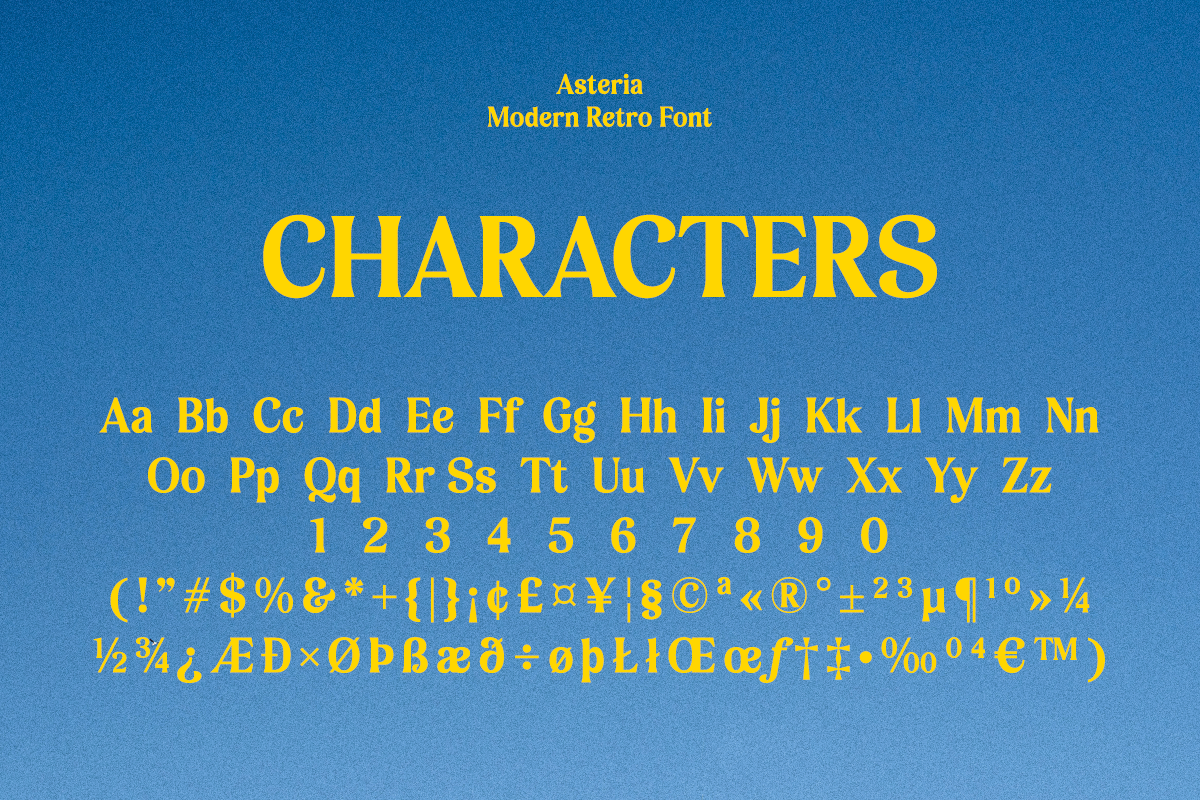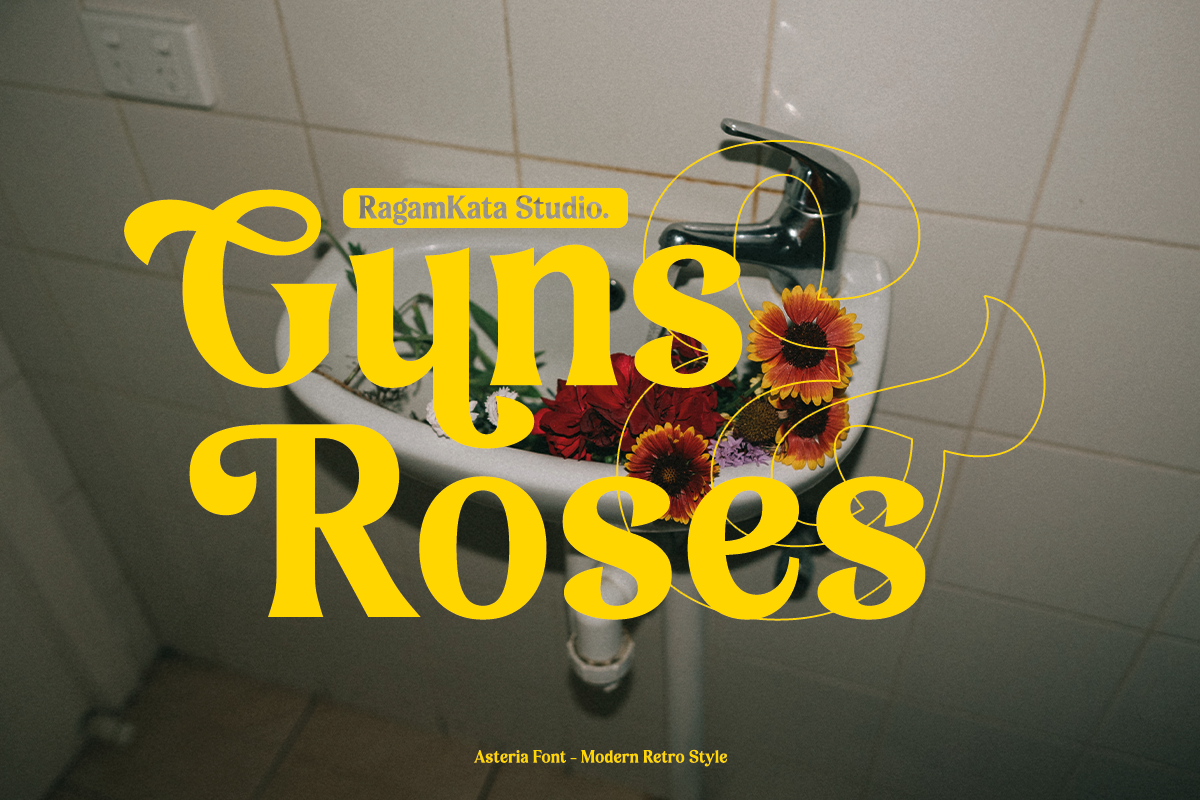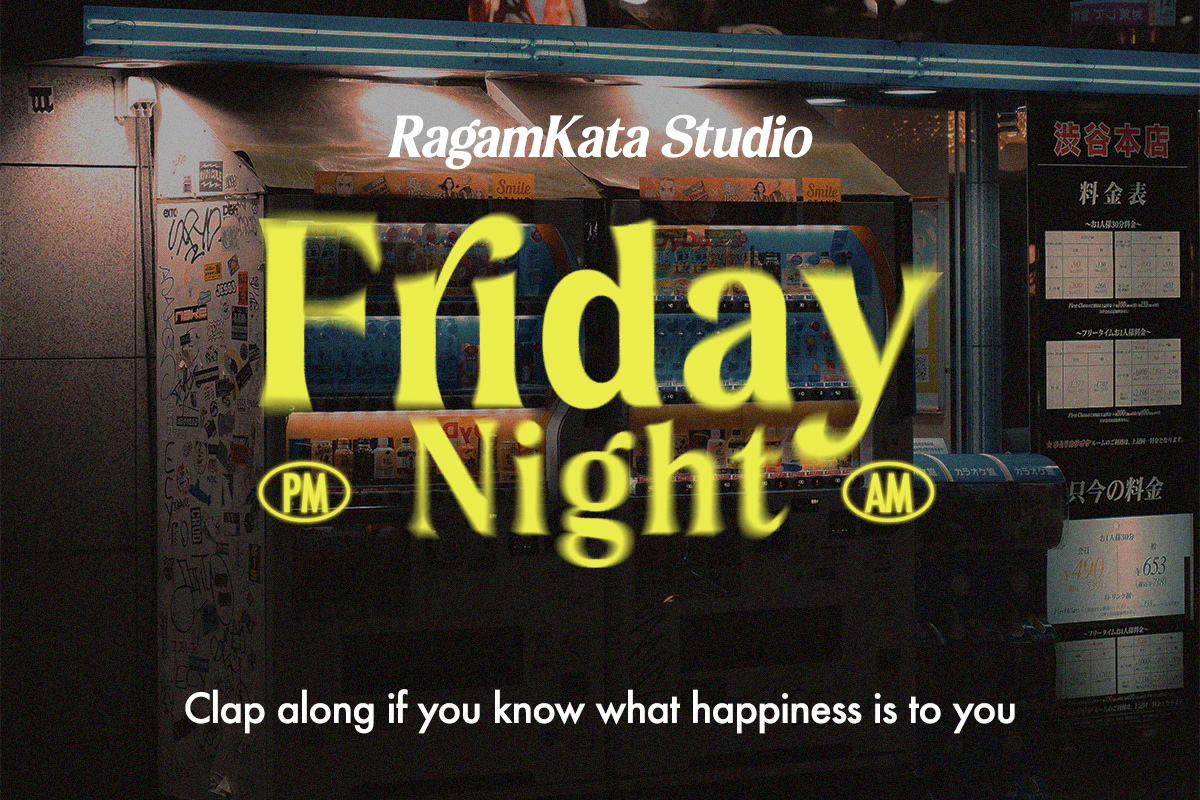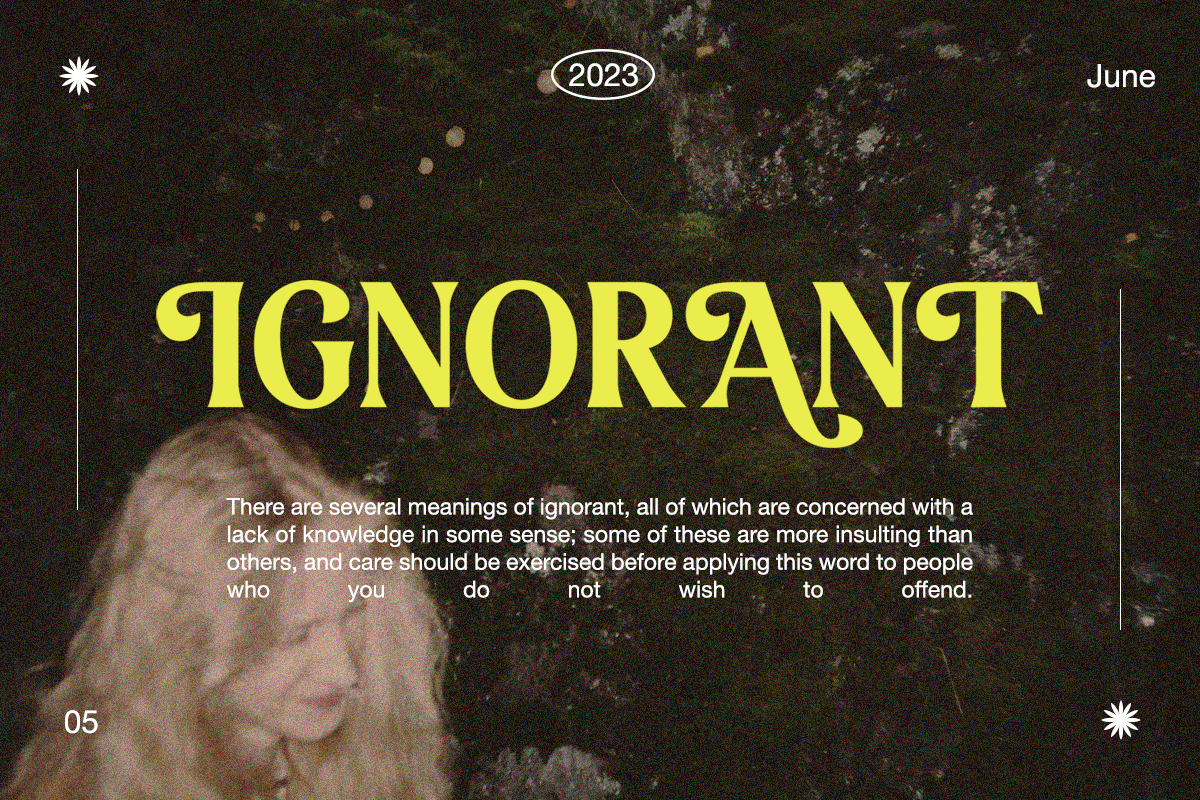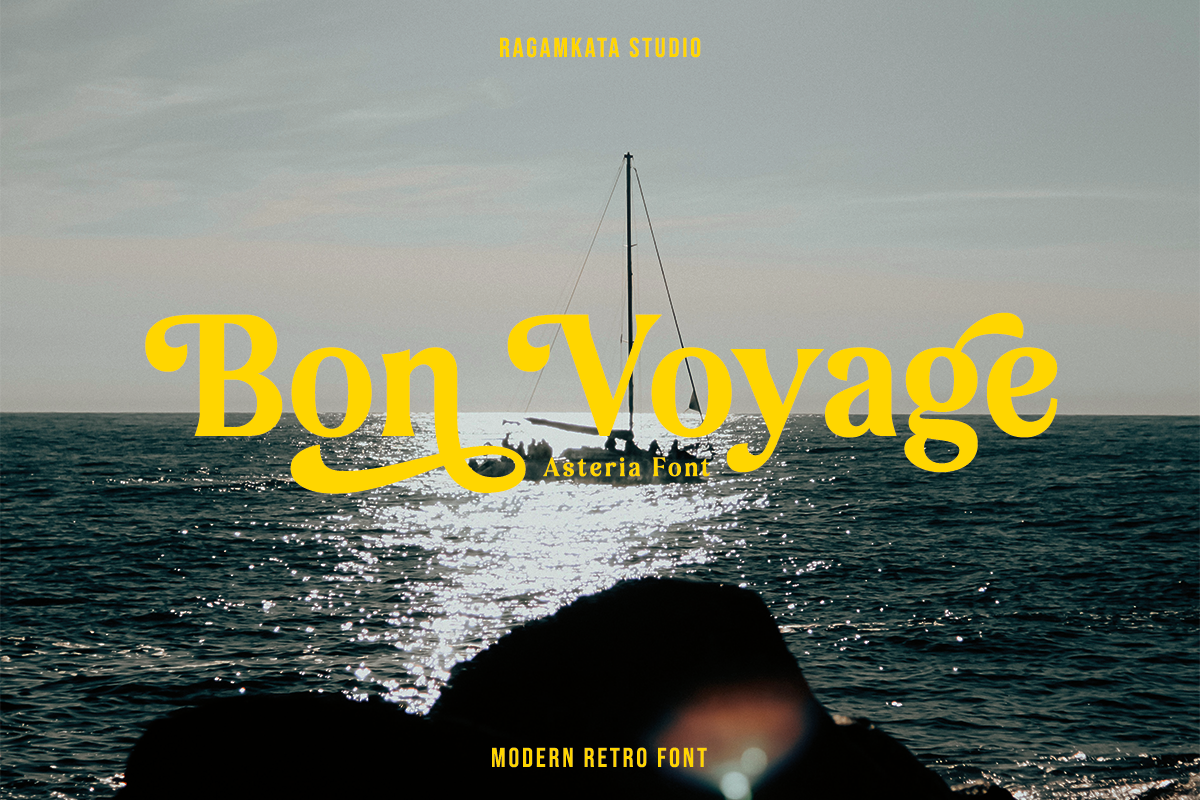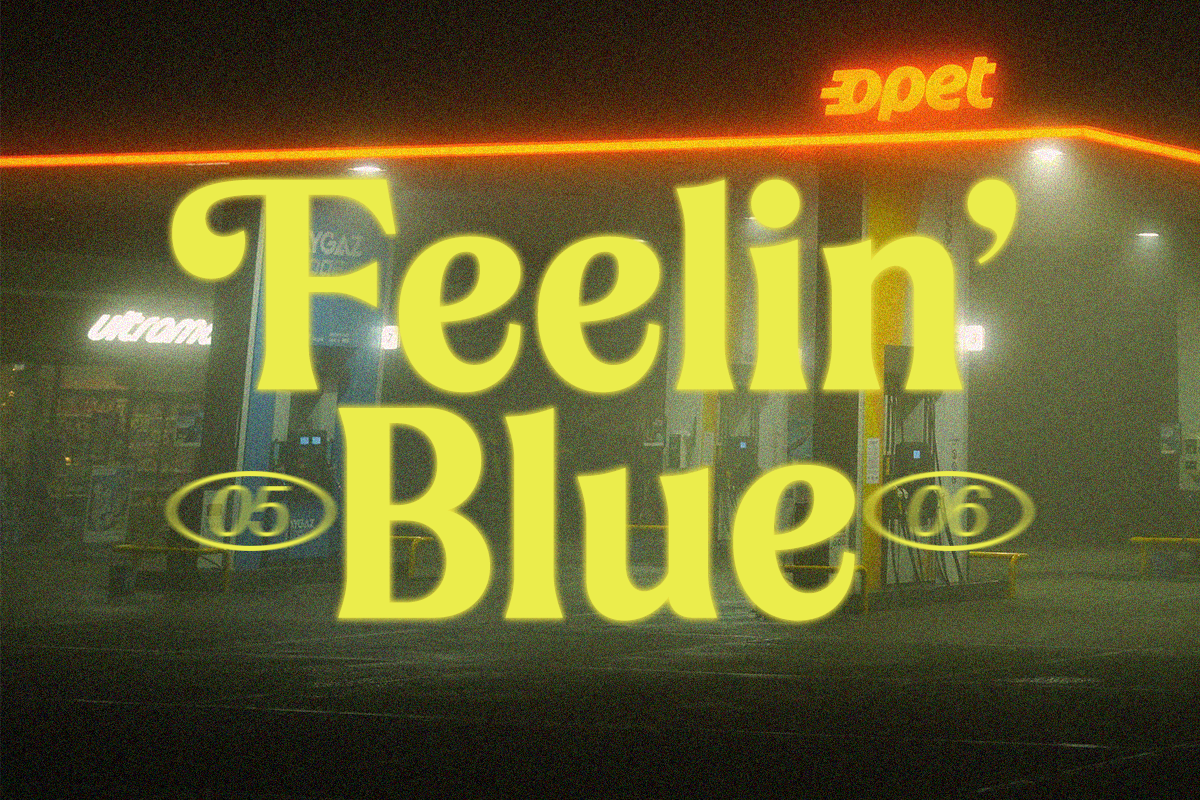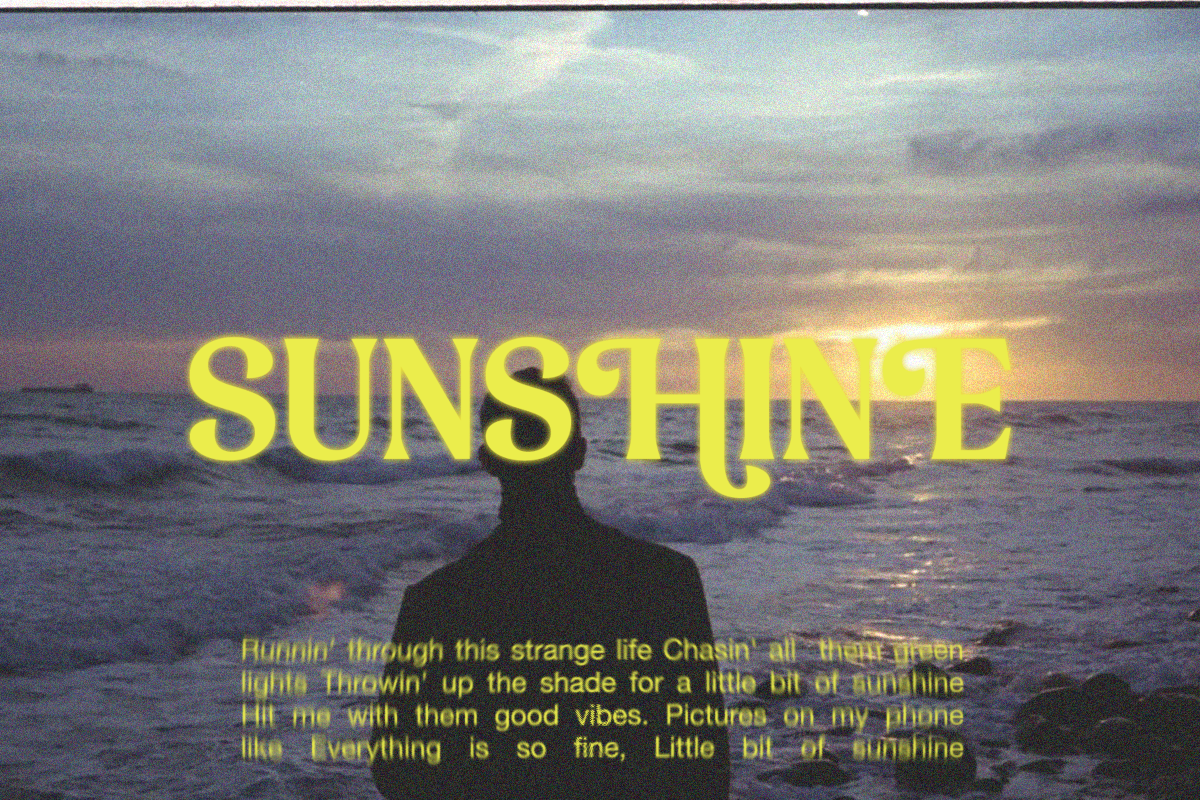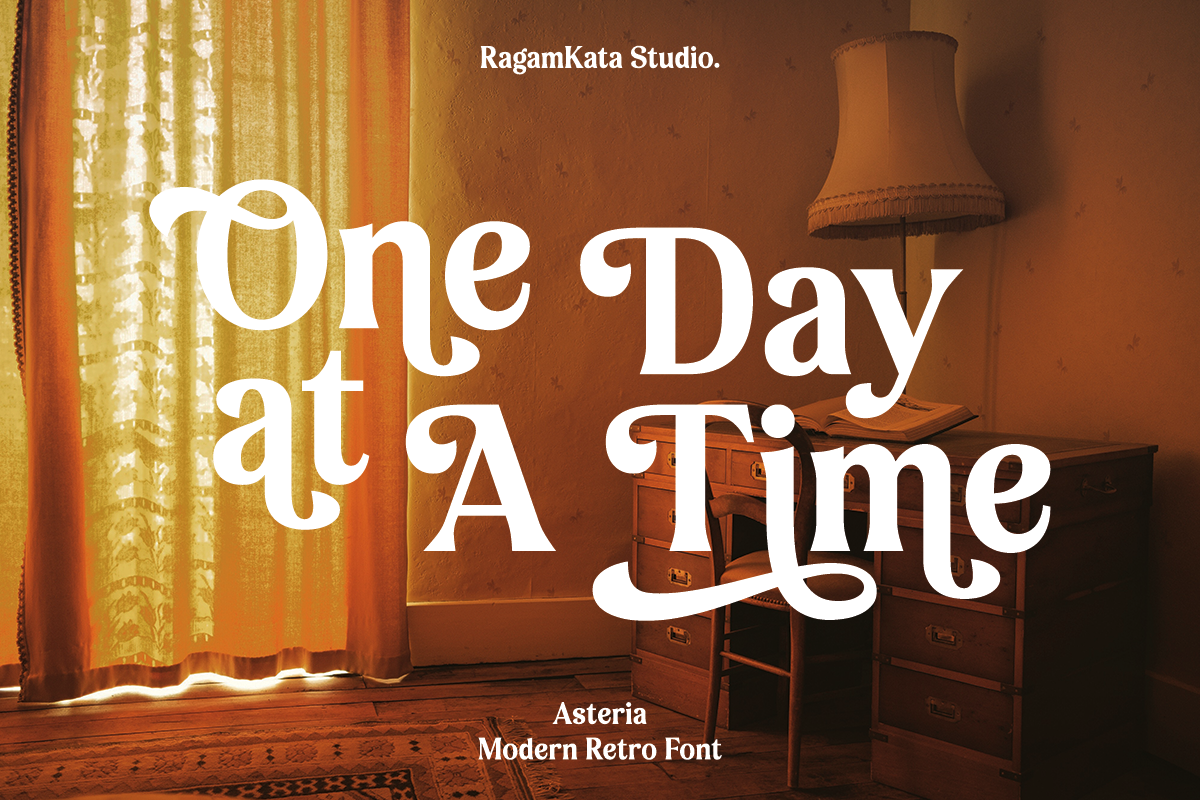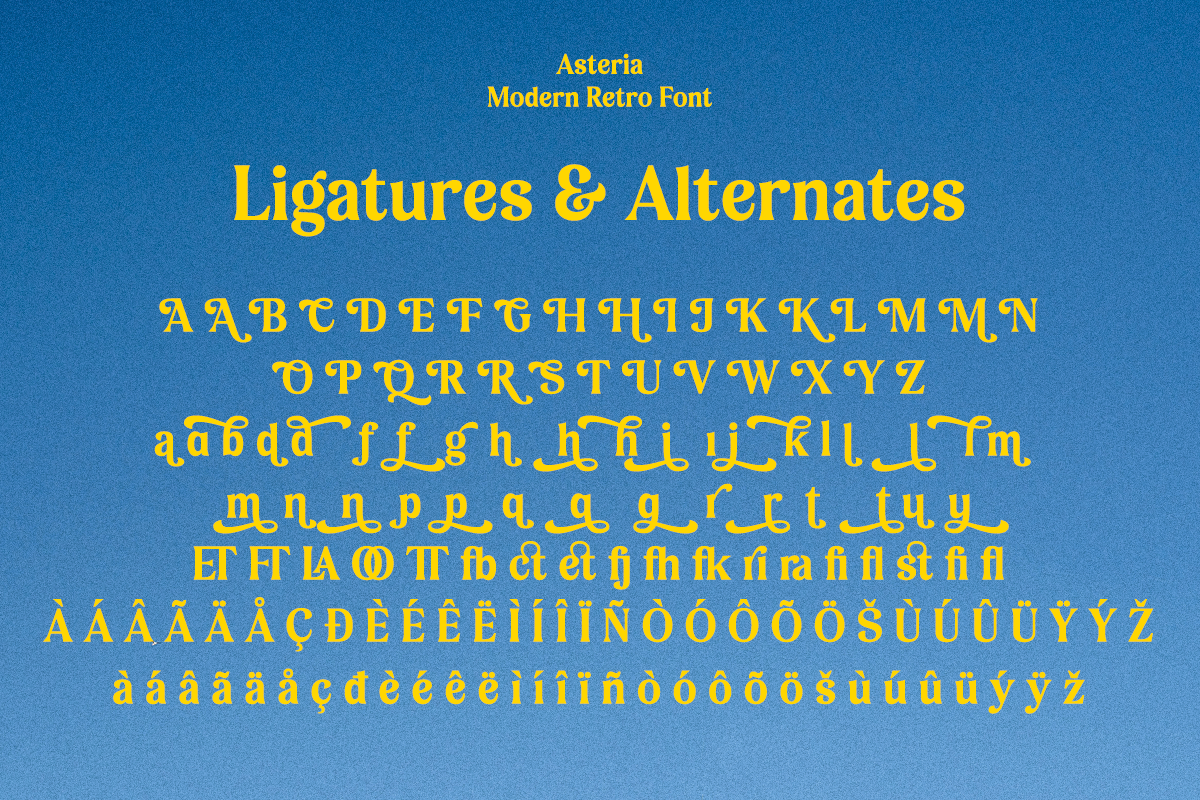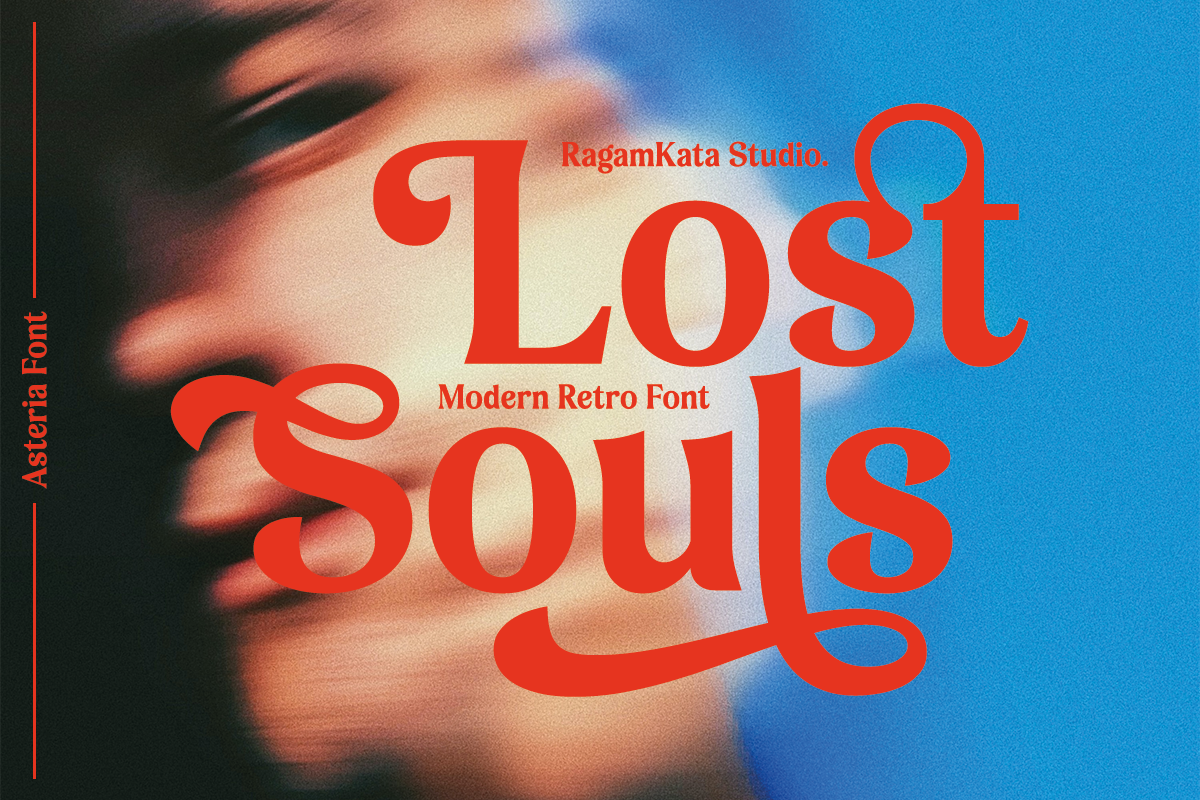
Asteria - Retro Display Font
Asteria is Retro Display Font. This typeface is perfect for various purposes such as Magazine Title, Poster, Logo, T-Shirt, Sub Title, Business cards, Magazines, Book Covers, Wedding Invitations,Templates Instagram Story Post, Greeting Cards, Quotes, etc.